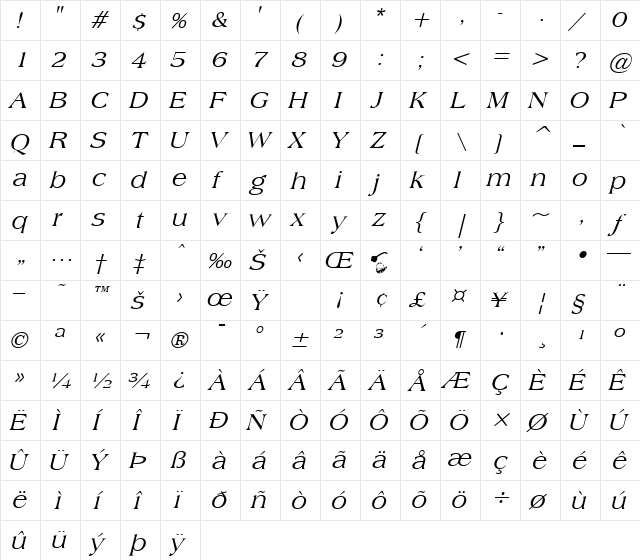
Broadsheet LDO Italic
Design Context for Broadsheet Typeface
Broadsheet takes a measured approach to typography — its balanced proportions and neutral character make it a reliable workhorse for both digital and print work. The dynamic lean of this cut emphasises speed and emphasis in any layout.
Pro Tip: Try Broadsheet for annotation and caption copy alongside an upright companion — the contrast in angle creates a dynamic but ordered typographic system.